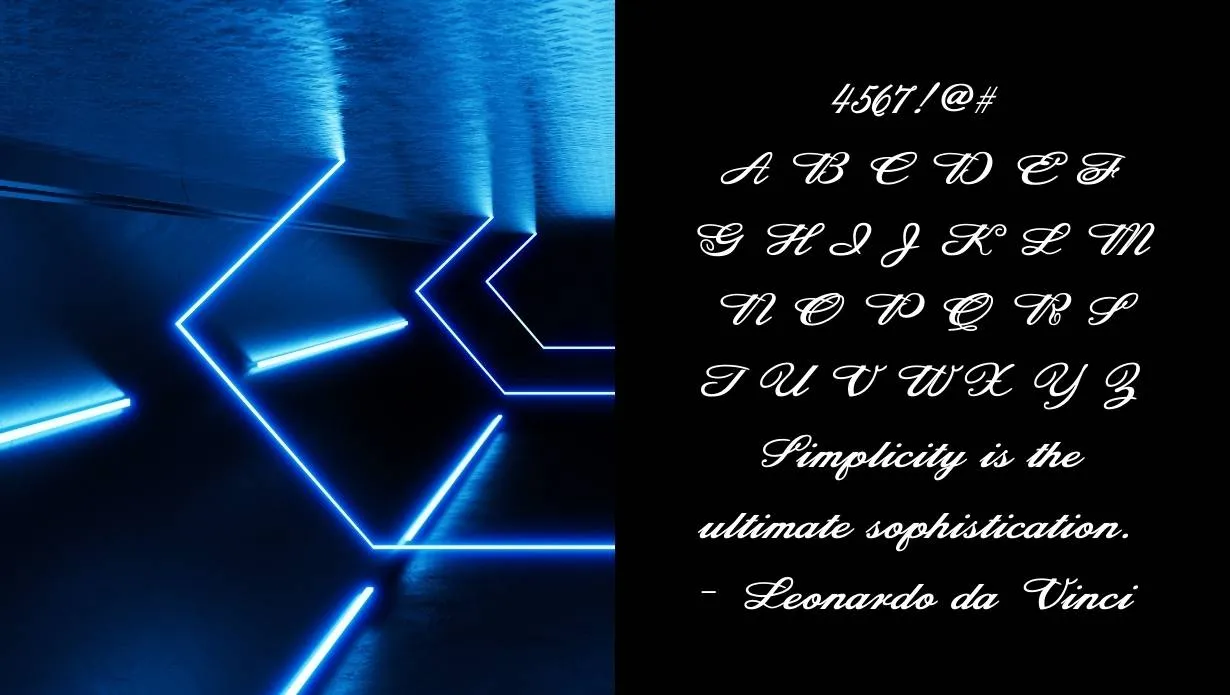
Budweiser Font belongs to the Script typeface. This font family was developed and published by Michael Hagemann. This typeface was released in the year 2006. It has a casual, amazing style with thick and thin strokes. It is a versatile font that can be used for both professional and personal projects.
With its casual and script style, Budweiser Font is an ideal choice for any project that requires a natural or vintage look. Whether you’re designing a logo, flyer, website, or album cover, this font family offers plenty of versatility and flexibility. If you want to enjoy more features then use abys font.
| Name | Budweiser Font |
| Designer | Michael Hagemann |
| Style | script |